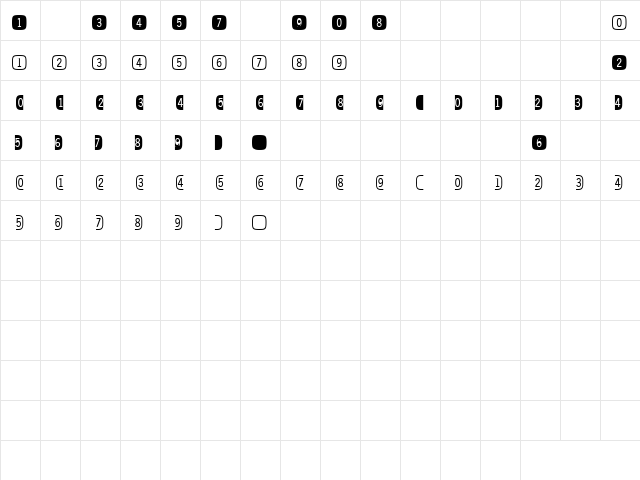
DigitsandPairsA Regular
Design Context for DigitsandPairsA Typeface
DigitsandPairsA channels digital-age aesthetics through its sharp, structured letterforms — ideal for brands that want to signal innovation.
Pro Tip: Try DigitsandPairsA with generous letter-spacing in UI labels and navigation — the geometric forms benefit from room to breathe.